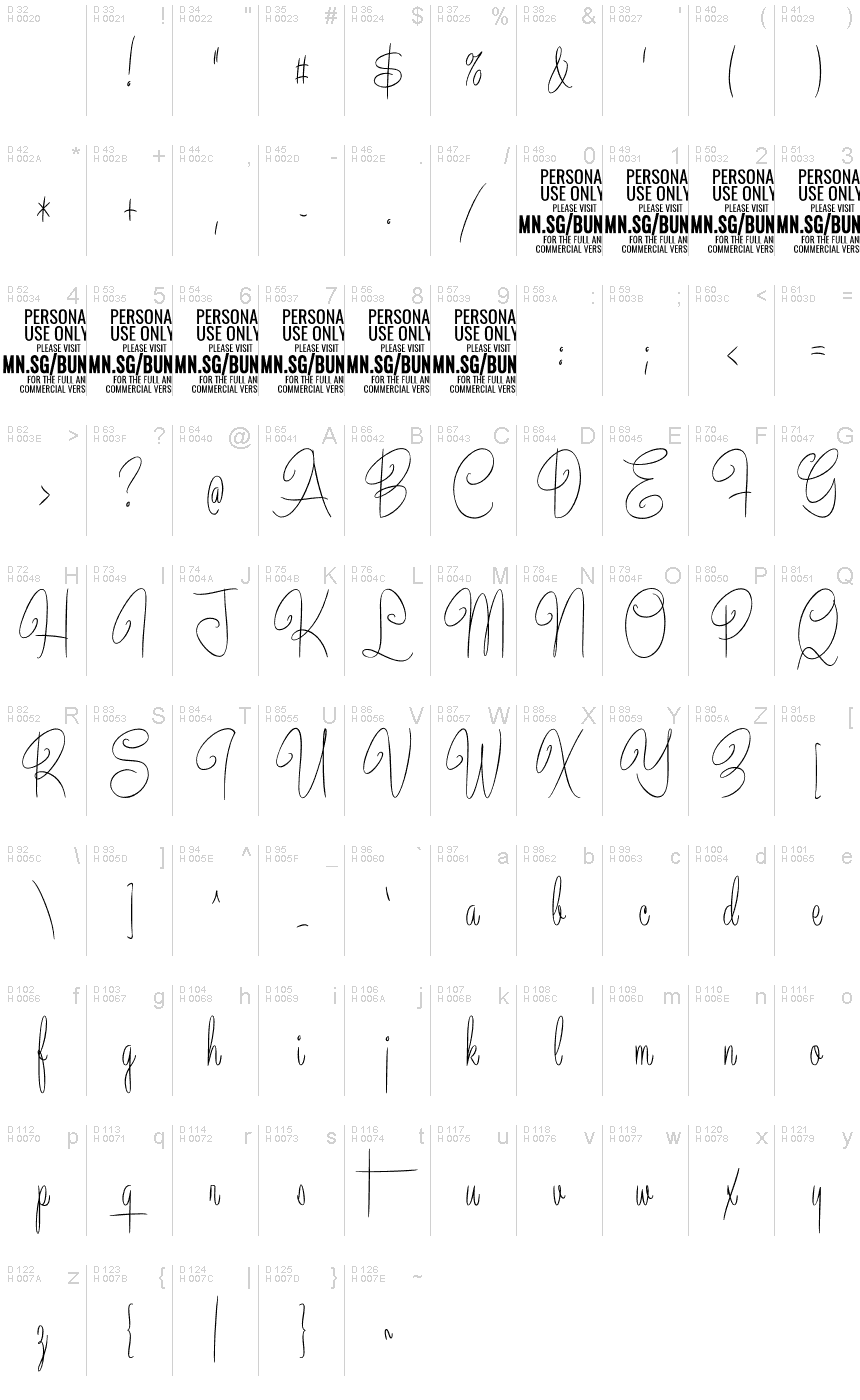
Bundey Script PERSONAL USE Regular
Bundey Script by Mans Greback is an ultra-light, condensed handwritten font that exudes elegance and sophistication. Perfect for wedding invitations, greeting cards, and other formal correspondence, Bundey Script adds a touch of personalization to any project. Its delicate strokes and flowing curves create a sense of whimsy and romance that is sure to impress. This font's thin lines make it suitable for use in smaller sizes while still maintaining readability. Bundle Script is the perfect choice for those looking to add a touch of refinement to their creative endeavors.